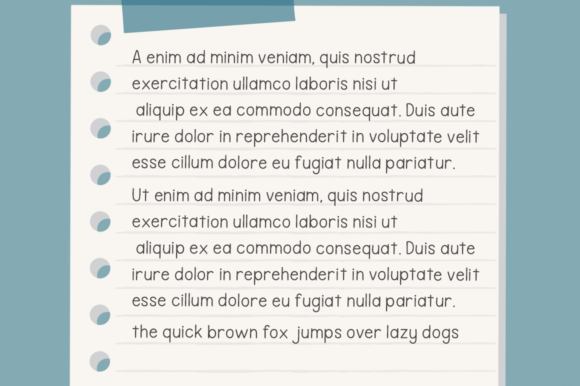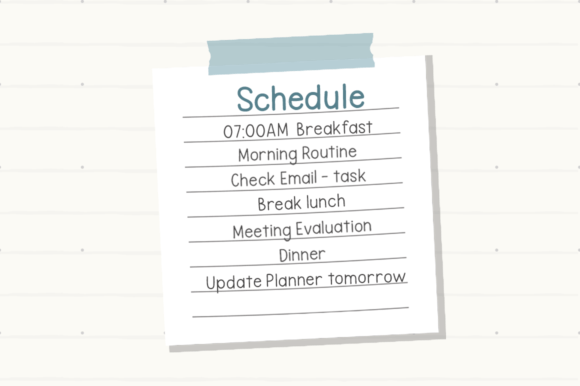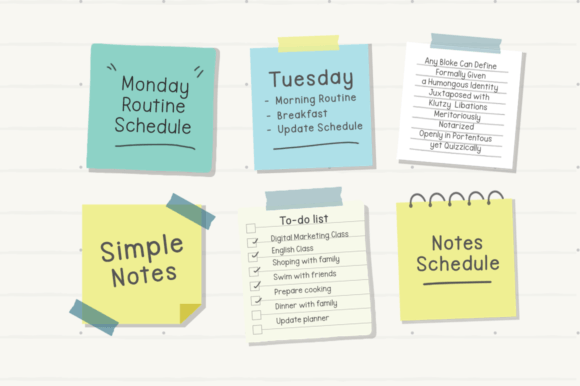
Notes Schedule Font
Schedule Notes is a simple handwritten note-taking font, you can use this font in various projects blog posts, branding, digital planners, invitations, greeting cards, planners, decorations, and more.Additional digital sticky notes for your digital planner projects.